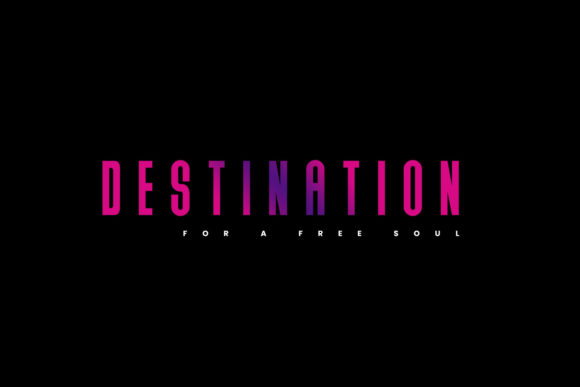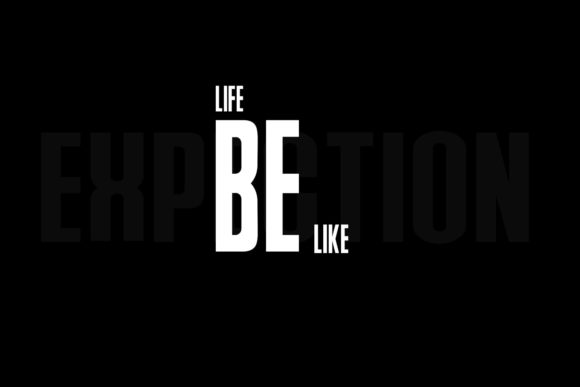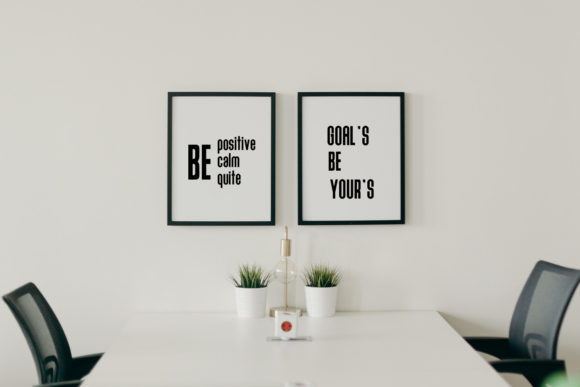
The Burger Font: A Designer’s New Best Friend
I still remember the design project that led me to discover the Burger font. I was working on a branding campaign for a trendy new restaurant, and I was struggling to find the perfect font to match their modern and sleek vibe. That’s when I stumbled upon Burger – a minimal and neat sans serif font that instantly caught my attention. In this article, I’ll share my experience with Burger, its features, and how to make the most of it in your designs.
An Honest Review of Burger Font
So, what makes Burger font so special? Here are some things I love about it:
- ✨ Clean and minimal design: Burger’s simple yet elegant design makes it perfect for a wide range of projects, from branding and advertising to packaging and digital media.
- ✅ Highly versatile: This font can be used for both headlines and body text, making it a great addition to any design project.
- 💡 Excellent legibility: Burger’s clear and concise design ensures that your text is easy to read, even at small sizes.
Of course, no font is perfect, and Burger has a few quirks:
- 🤔 Limited character set: While Burger has a wide range of characters, it may not have some of the more obscure characters you need for certain projects.
- ⚠️ Not ideal for body text: While Burger can be used for body text, it’s not the most optimal choice. It’s better suited for headlines, titles, and short paragraphs.
The Story Behind Burger Font
The Burger font was designed by a team of designers who wanted to create a clean and modern sans serif font that could be used for a wide range of projects. The font was inspired by the simplicity and elegance of modern design, and it’s perfect for designers who want to add a touch of sophistication to their work.
Here are some frequently asked questions about Burger font:
- Q: What is Burger font?
- A: Burger font is a minimal and neat sans serif font designed for a wide range of projects.
- Q: Can I use Burger font for body text?
- A: While Burger font can be used for body text, it’s not the most optimal choice. It’s better suited for headlines, titles, and short paragraphs.
- Q: Does Burger font support OpenType features?
- A: Yes, Burger font supports OpenType features, including glyphs and stylistic alternates.